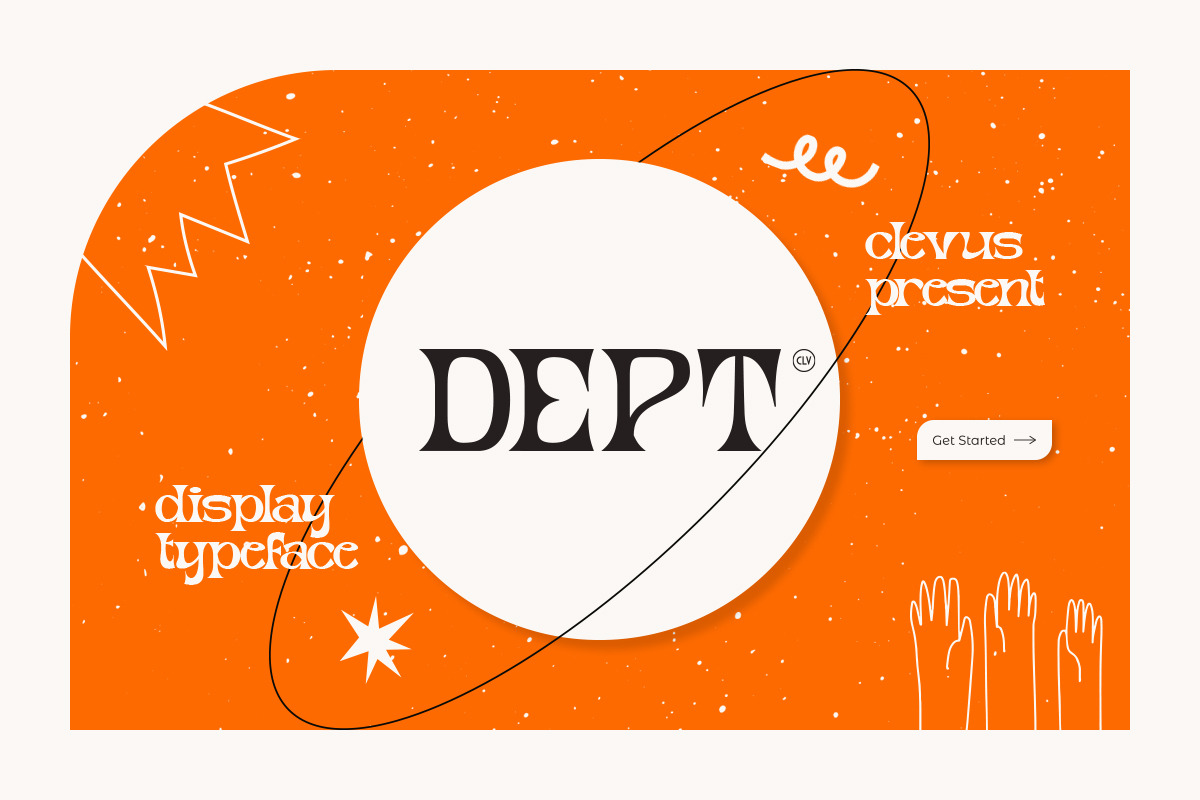
Dept | Display typeface
Proudly present Dept display typeface
With a Unique and dynamic Display typeface style, Dept is a font that brings a bold and modern impression. The geometric and bold letter characteristics provide a unique and strong look to every design. Suitable for use in branding and advertising projects, Dept will make every design more attractive and effective.